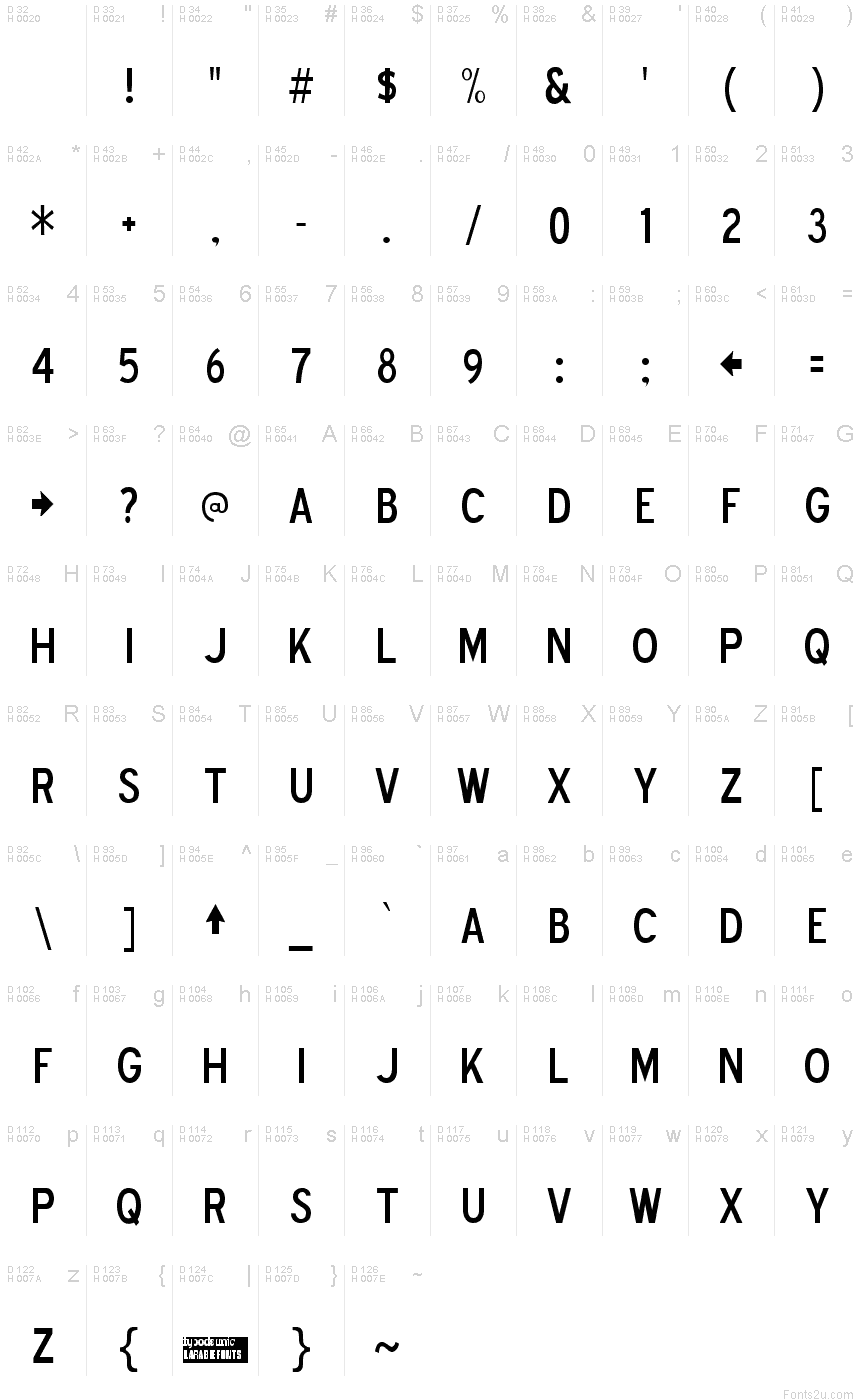
Blue Highway D Type
Blue Highway D Type font by Ray Larabie is a free condensed sans serif font. Its standout quality is the way it packs bold, road-sign clarity into a narrow footprint, with tall, squared forms and tight rhythm that feel crisp, direct, and unmistakably urban. Even at a glance, it has that clean painted-on-metal energy—practical, sturdy, and a little industrial.
Using Blue Highway D Type works beautifully for posters, storefront graphics, album art, sports branding, packaging, wayfinding, and YouTube thumbnails. This free font holds its shape when space is tight, so headlines stay forceful without feeling cramped. Pair it with a plain neutral sans for body copy, and give it room to breathe at larger sizes.